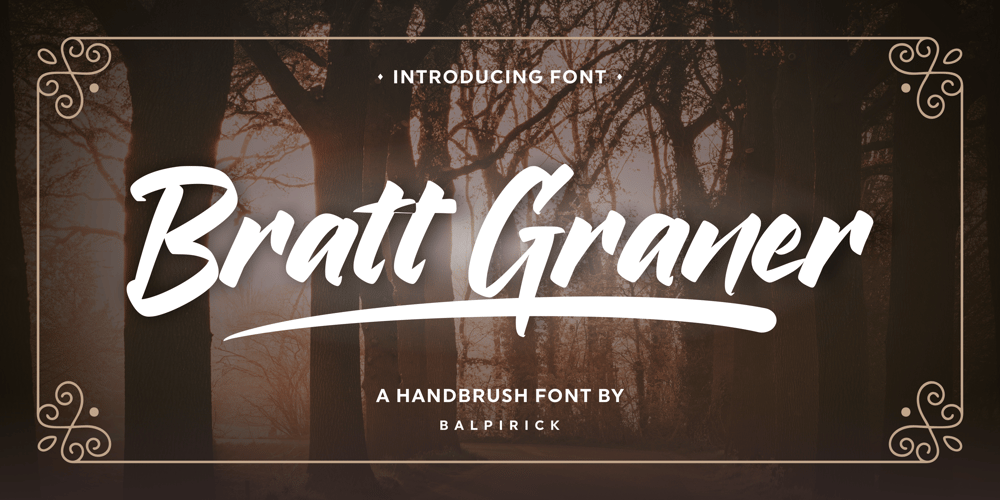
Bratt Graner Font Family was designed by Restu Angga and published by Balpirick. Bratt Graner contains 1 styles and family package options. Bratt Graner is a modern brush font that is perfect for any title, shop name and logo. and also very suitable for product packaging, branding projects, magazine, social media, or just used to express words over the background. This font includes OTF and multilingual support.